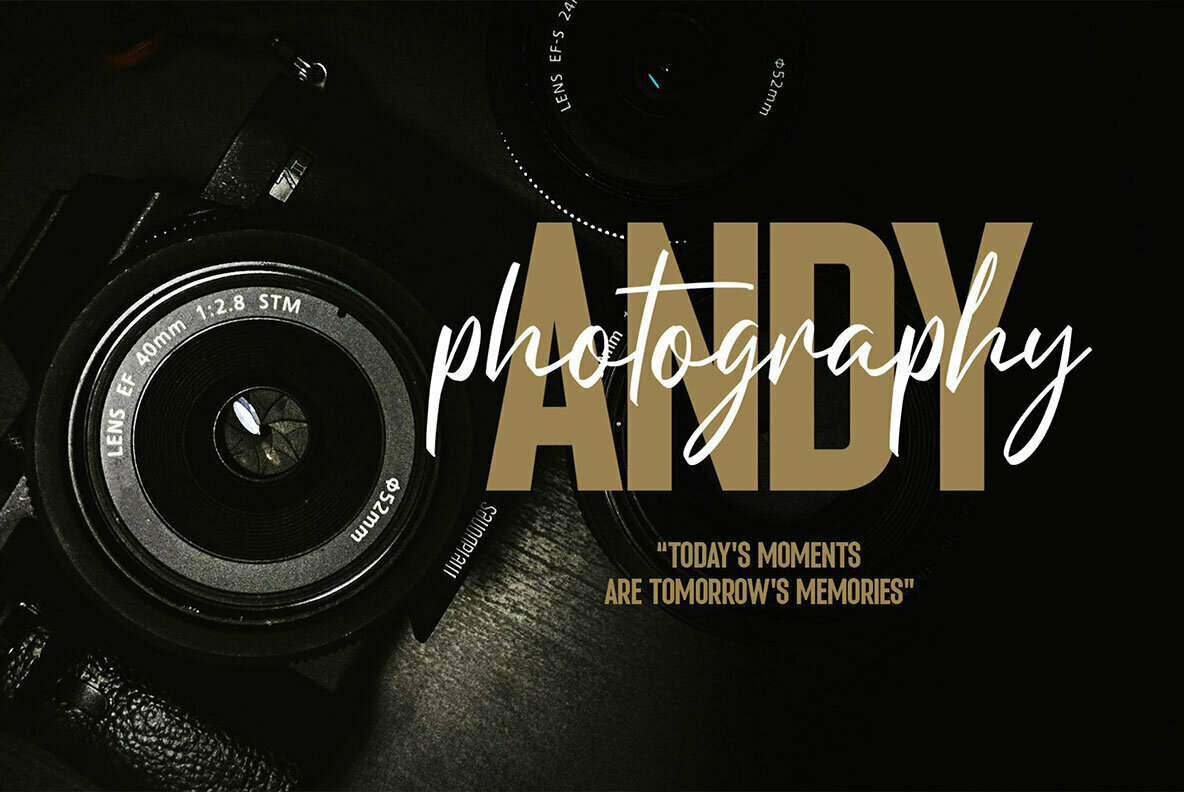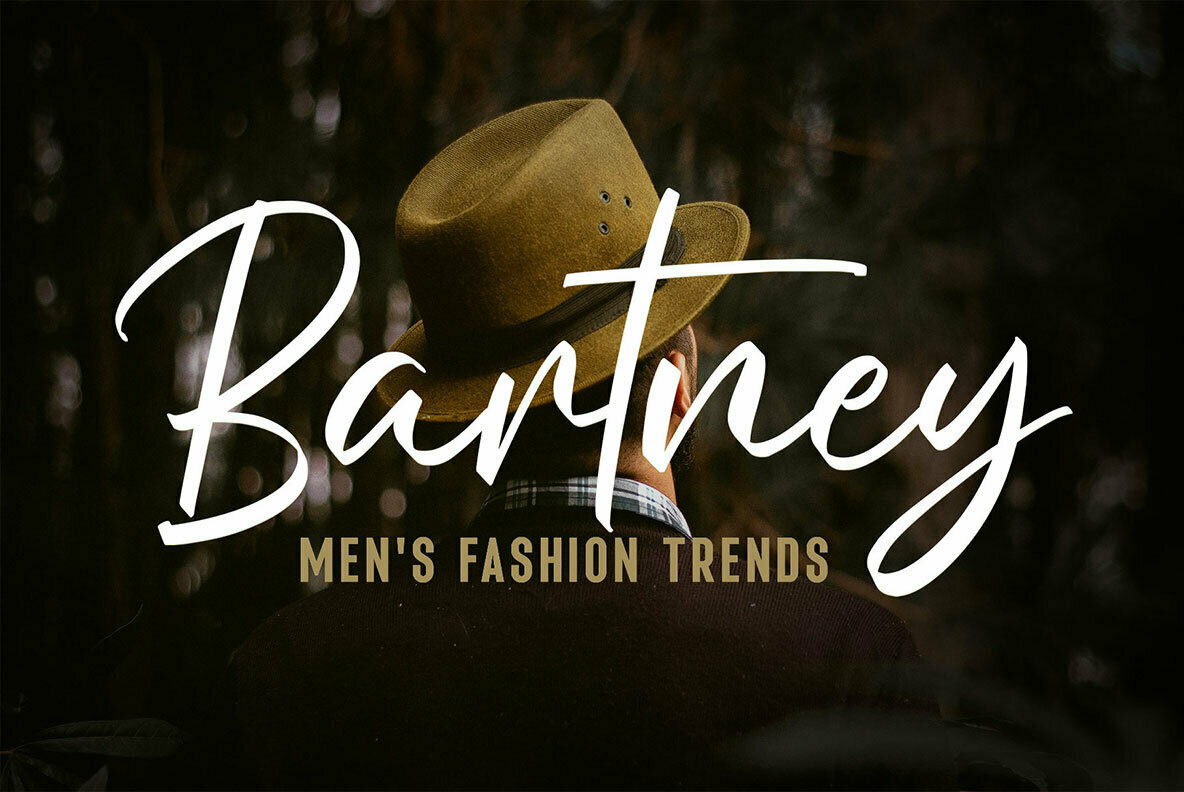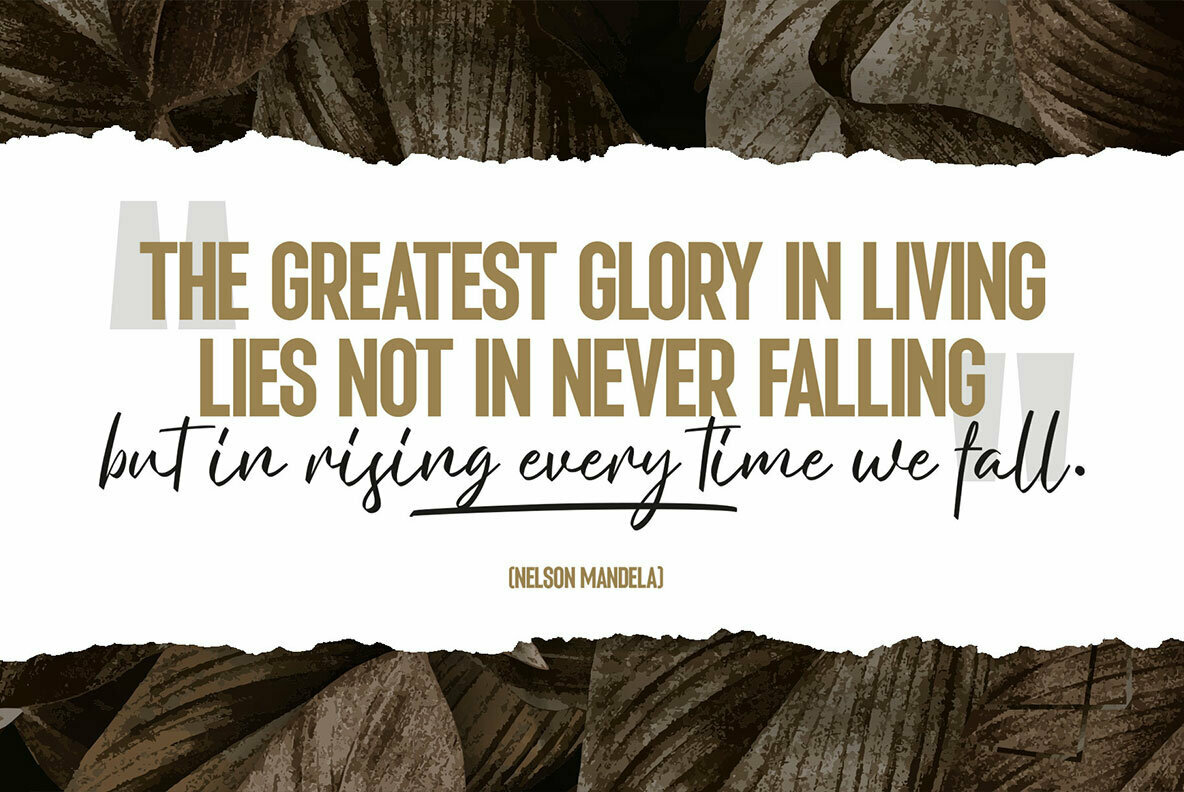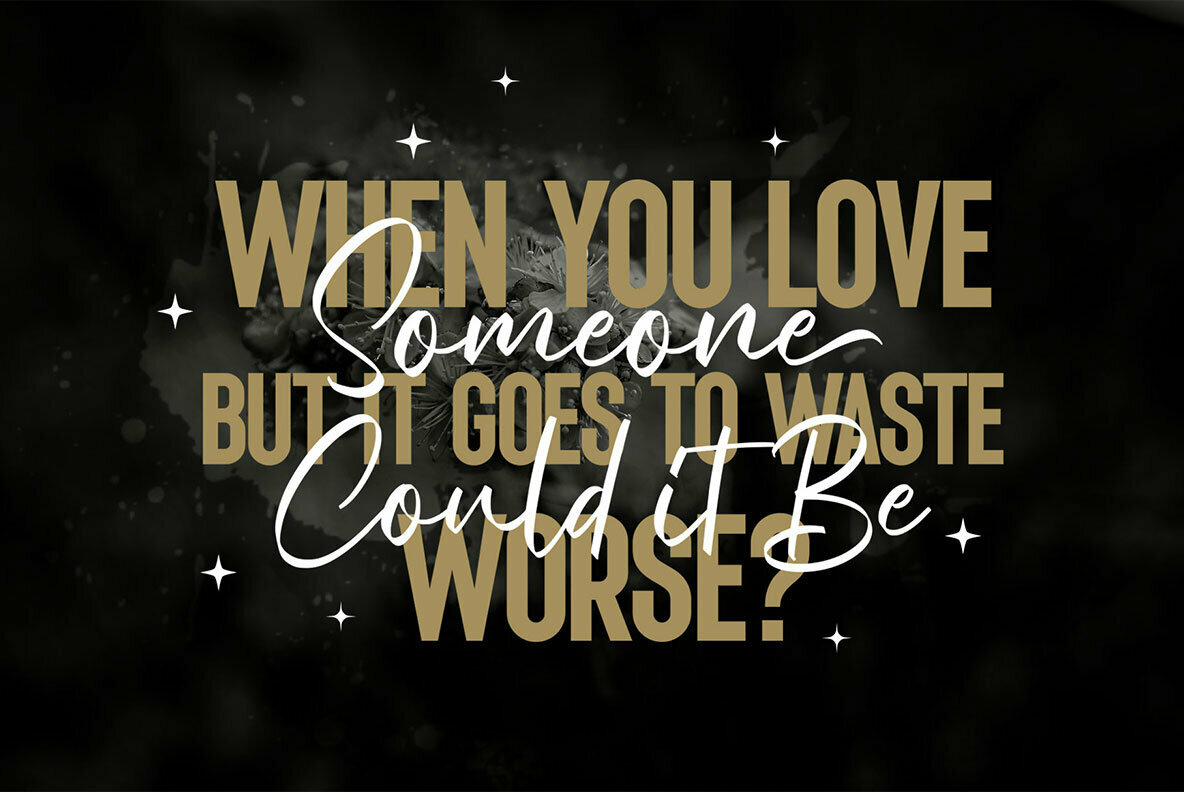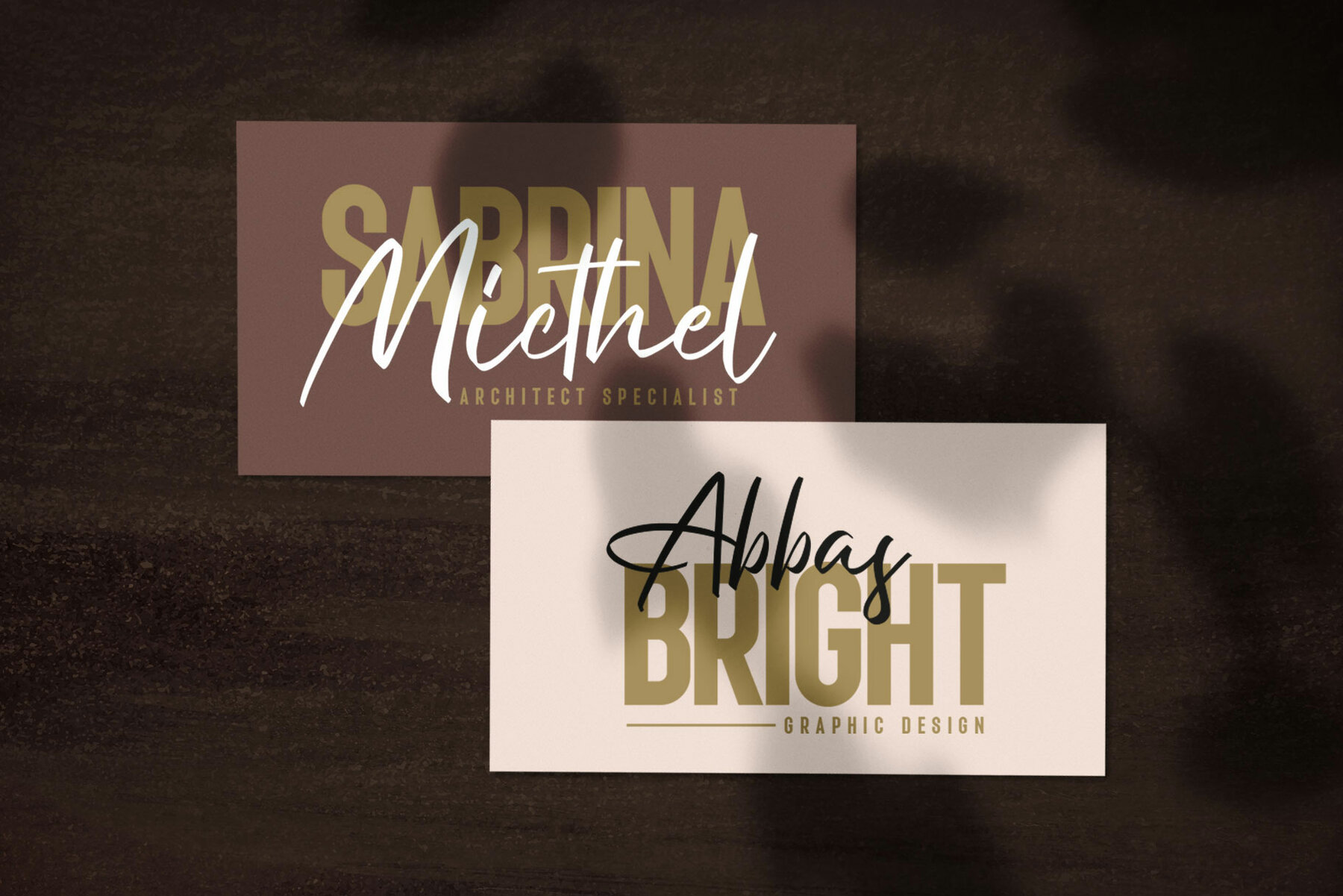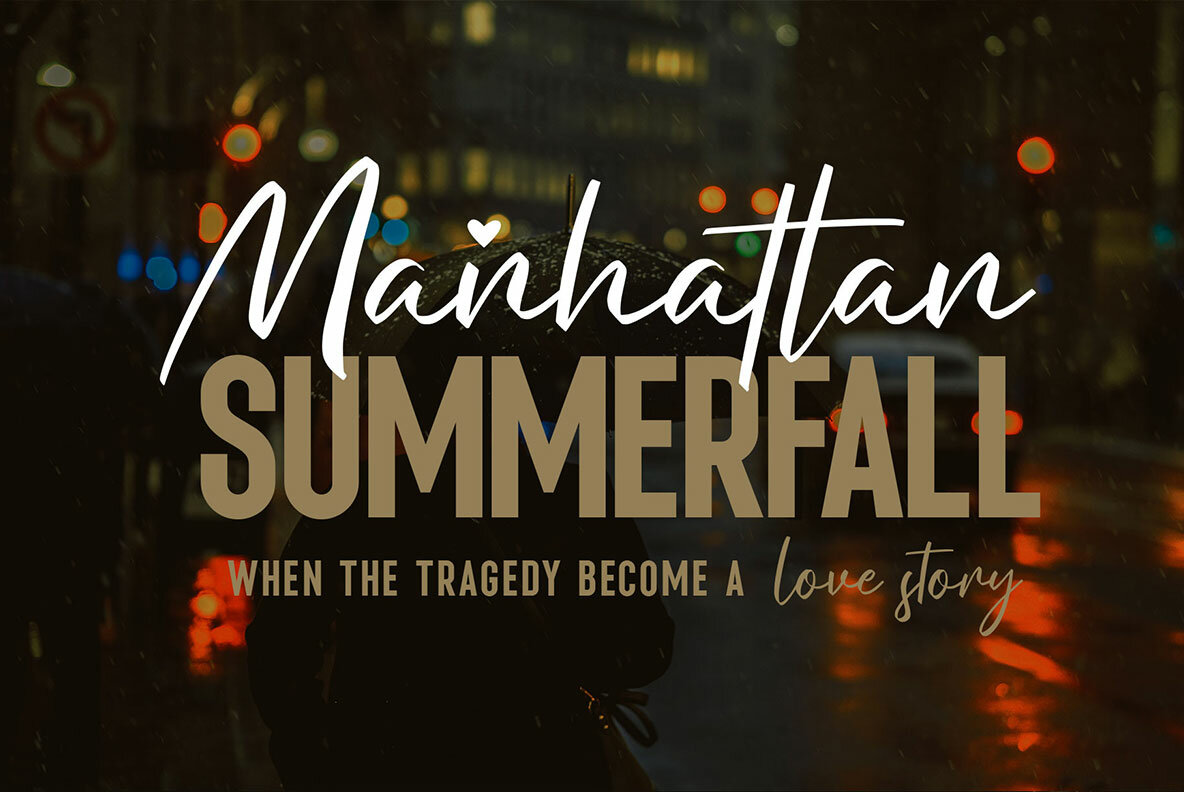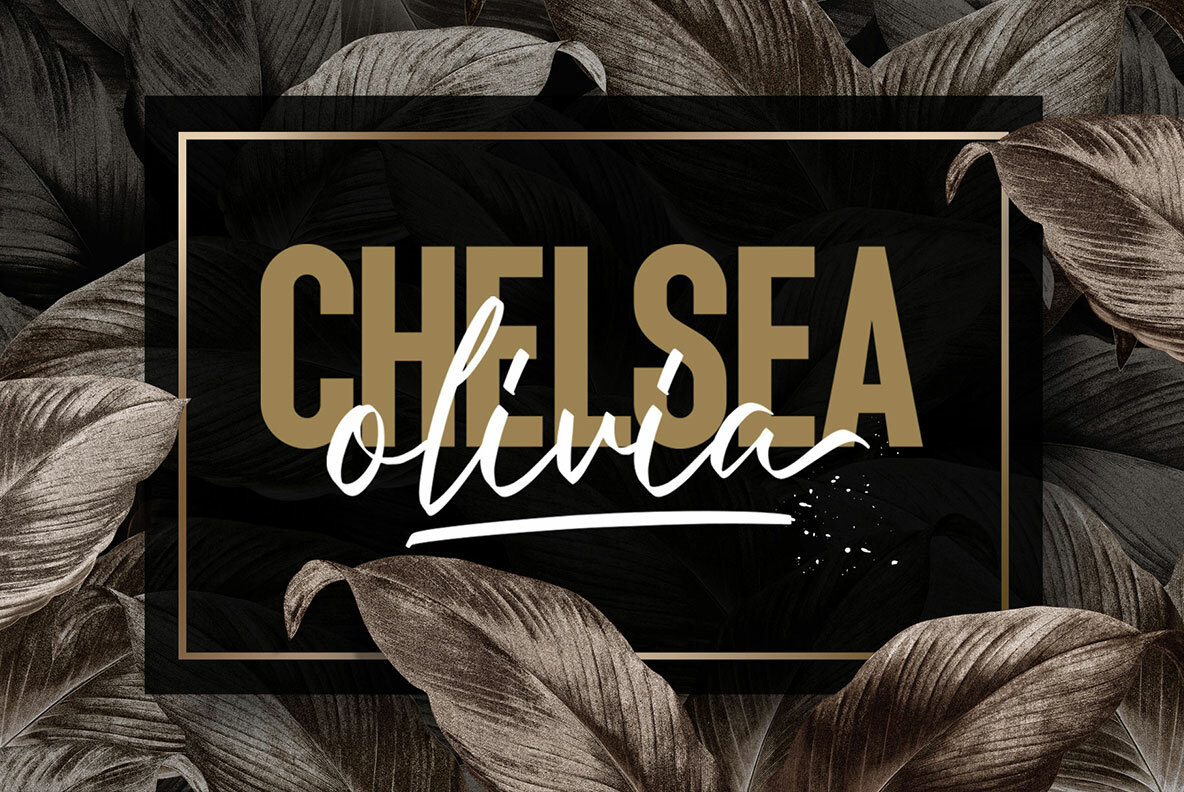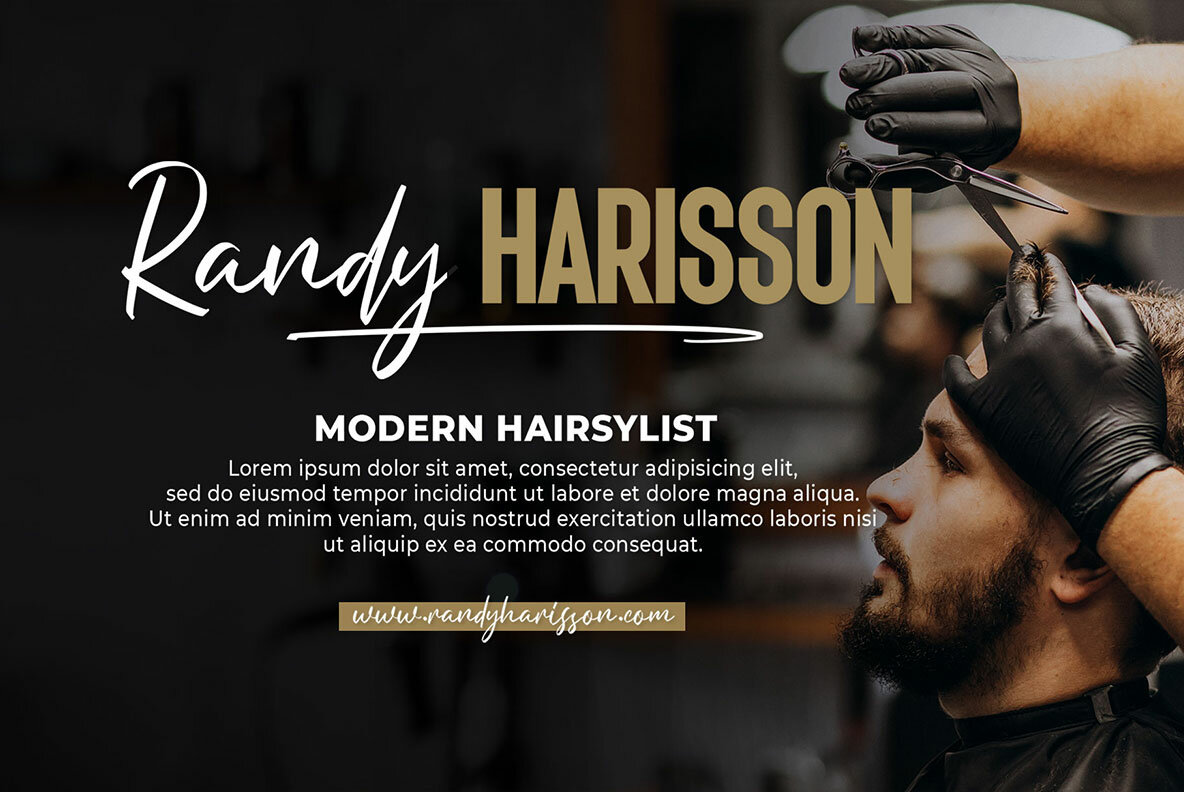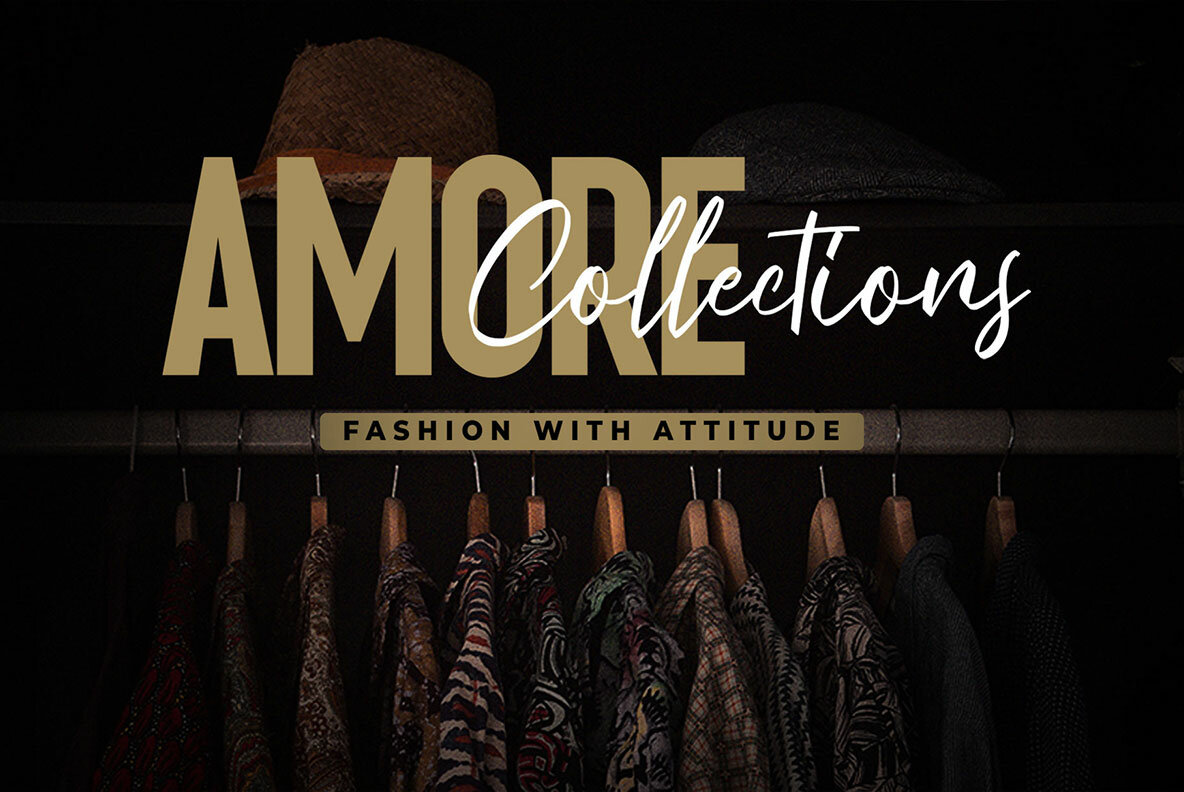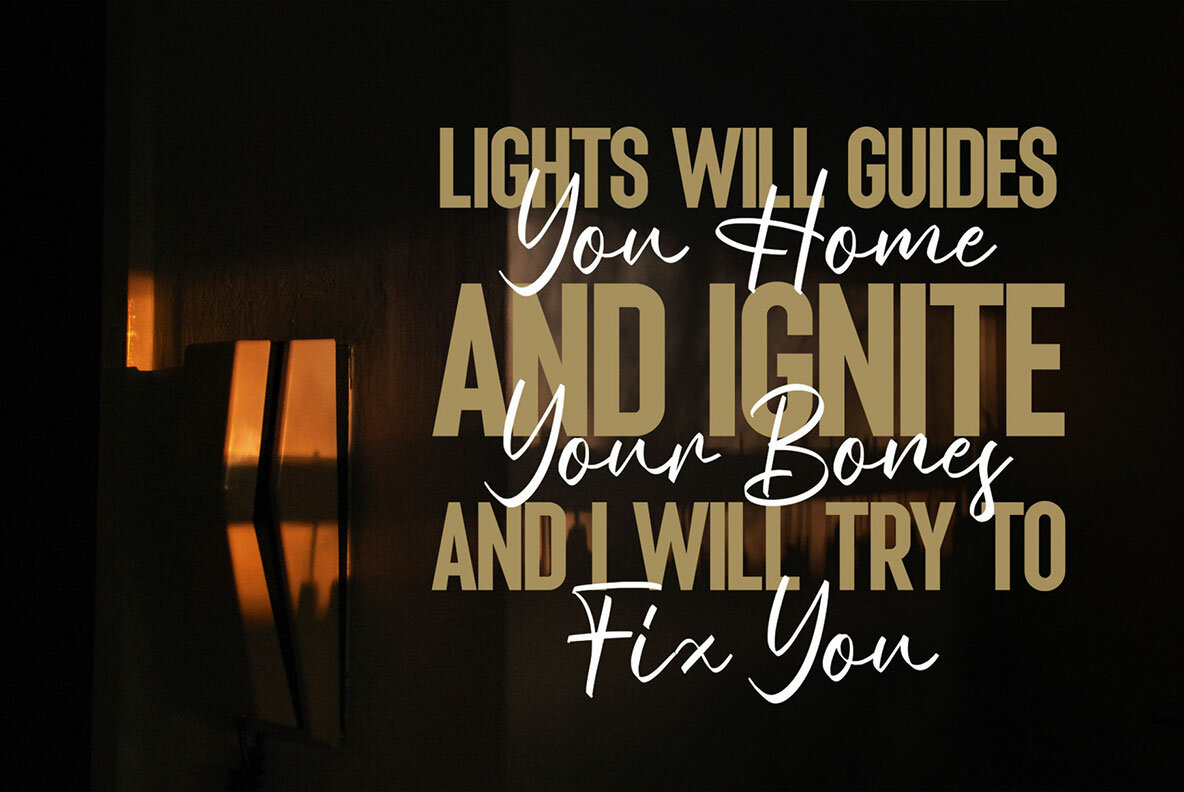
Niquitta Mirzani Font
Niquitta Mirzani presents a sophisticated blend of script and sans serif styles, crafted for versatile design applications. The script element exhibits a signature-like flair, capturing the essence of swift handwriting with wide, graceful strokes. Complementing this, the sans serif component is characterized by its condensed, semi-bold forms, offering a robust canvas for pairing with the script. Whether anchoring a headline or accentuating a tagline, Niquitta Mirzani's harmonious font duo is designed to adapt to diverse layouts. Perfect for a range of digital and print materials—apparel, name cards, logos, packaging, and beyond—this typeface supports themes from romantic to professional. Its meticulous alternates and ligatures enhance natural flow, adding a personal touch to typographic compositions.Niquitta Mirzani: Elegant Script and Sans Duo